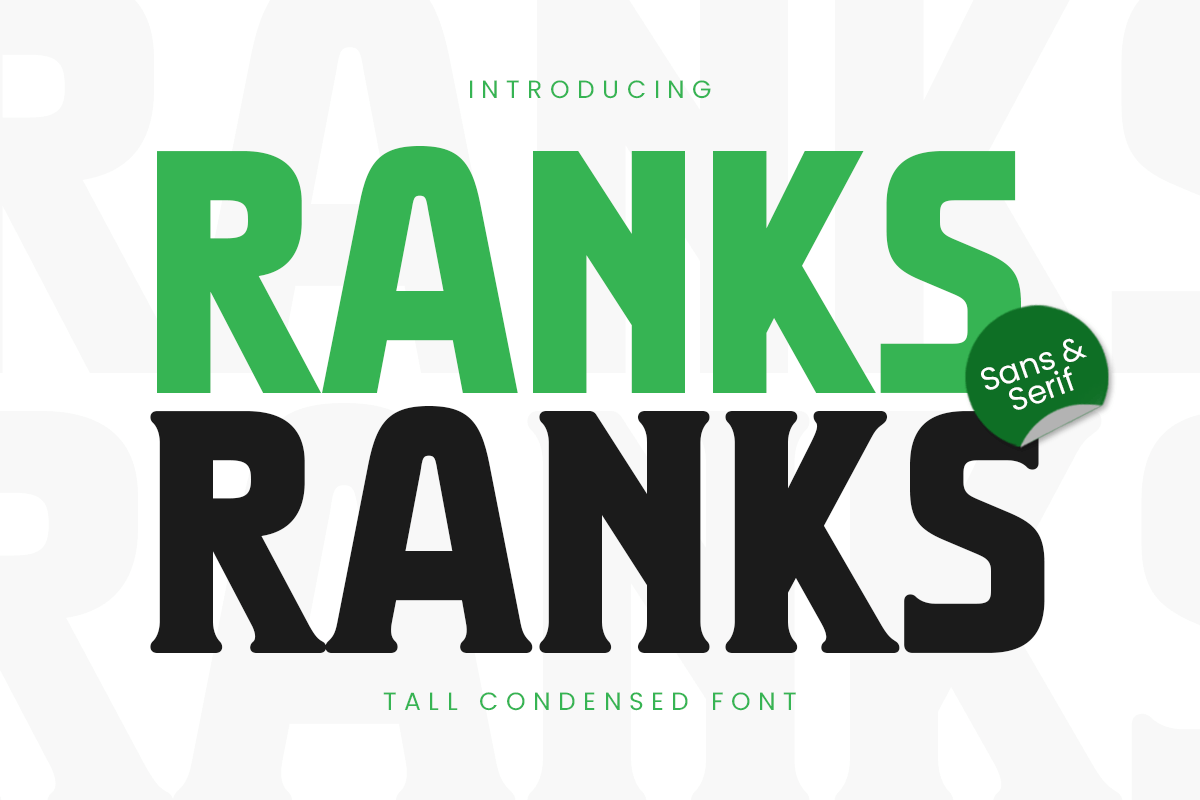
Ranks
-Tall Condensed Font
ranks sans
Ranks Sans
ranks serif
Ranks Serif
Ranks Font - Tall Condensed Font
Ranks font is a tall and condensed font designed for bold, impactful typography. With its sleek, vertical letterforms and modern aesthetic, this typeface commands attention and exudes confidence. Perfect for editorial headlines, branding, posters, high-fashion graphics, and luxury packaging, Ranks font is ideal for making a strong visual statement.
Its clean lines and sharp proportions make it a great choice for contemporary design projects, from tech branding to magazine layouts. Whether you're crafting a minimalist logo, an eye-catching billboard, or striking website typography, Ranks font ensures high readability and bold impact.
Ranks Font - Tall Condensed Font Features:
• Ready with Sans-Serif and Serif Style
• Modern, sleek, and bold condensed letterforms
• Perfect for high-impact branding, fashion, and editorial design
• Punctuation, numbers, and symbols included
• Uppercase and lowercase letters
• OpenType features for creative flexibility
Create bold, confident, and powerful designs with Ranks font—the ultimate tall condensed font for modern creatives.